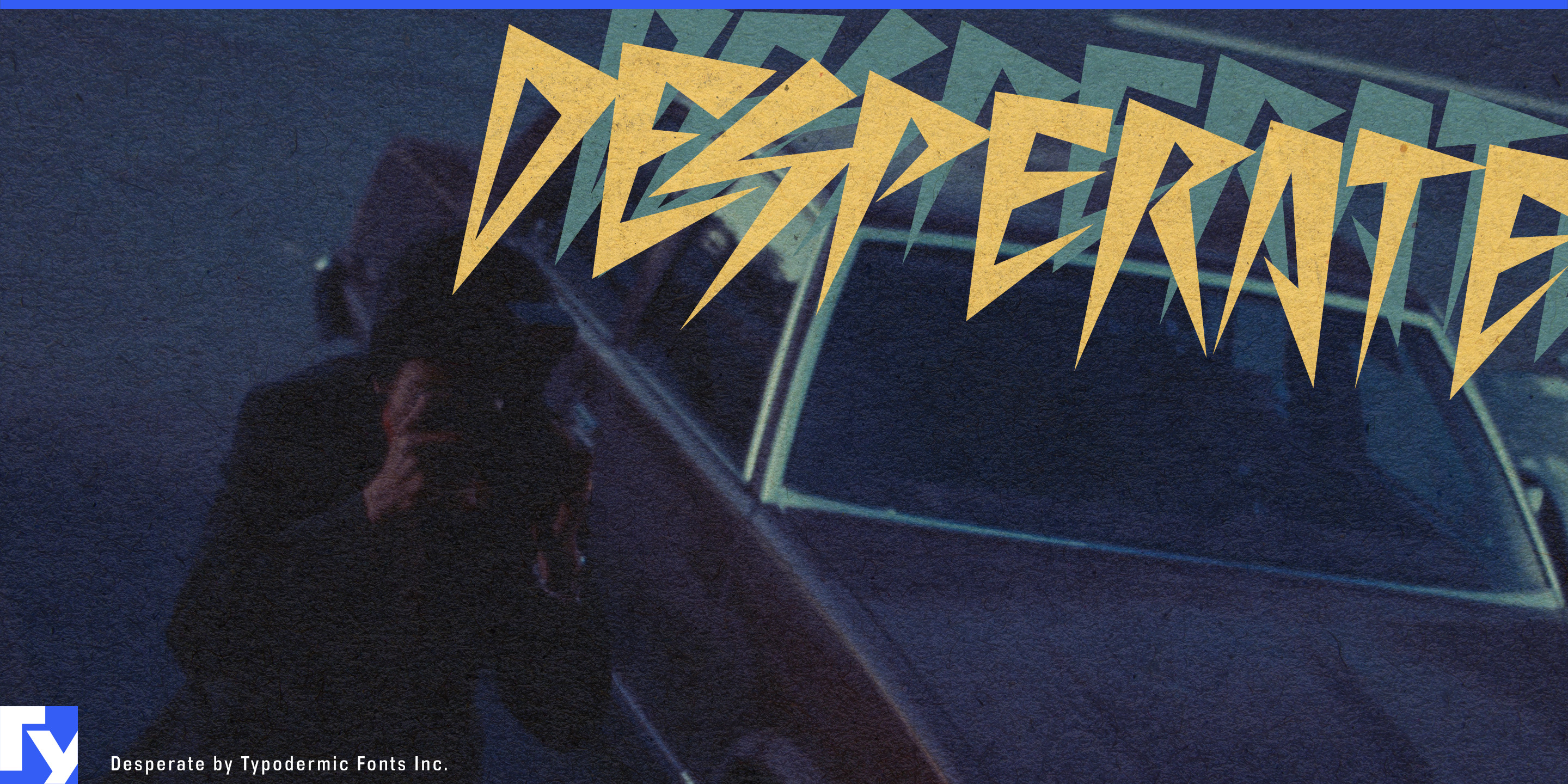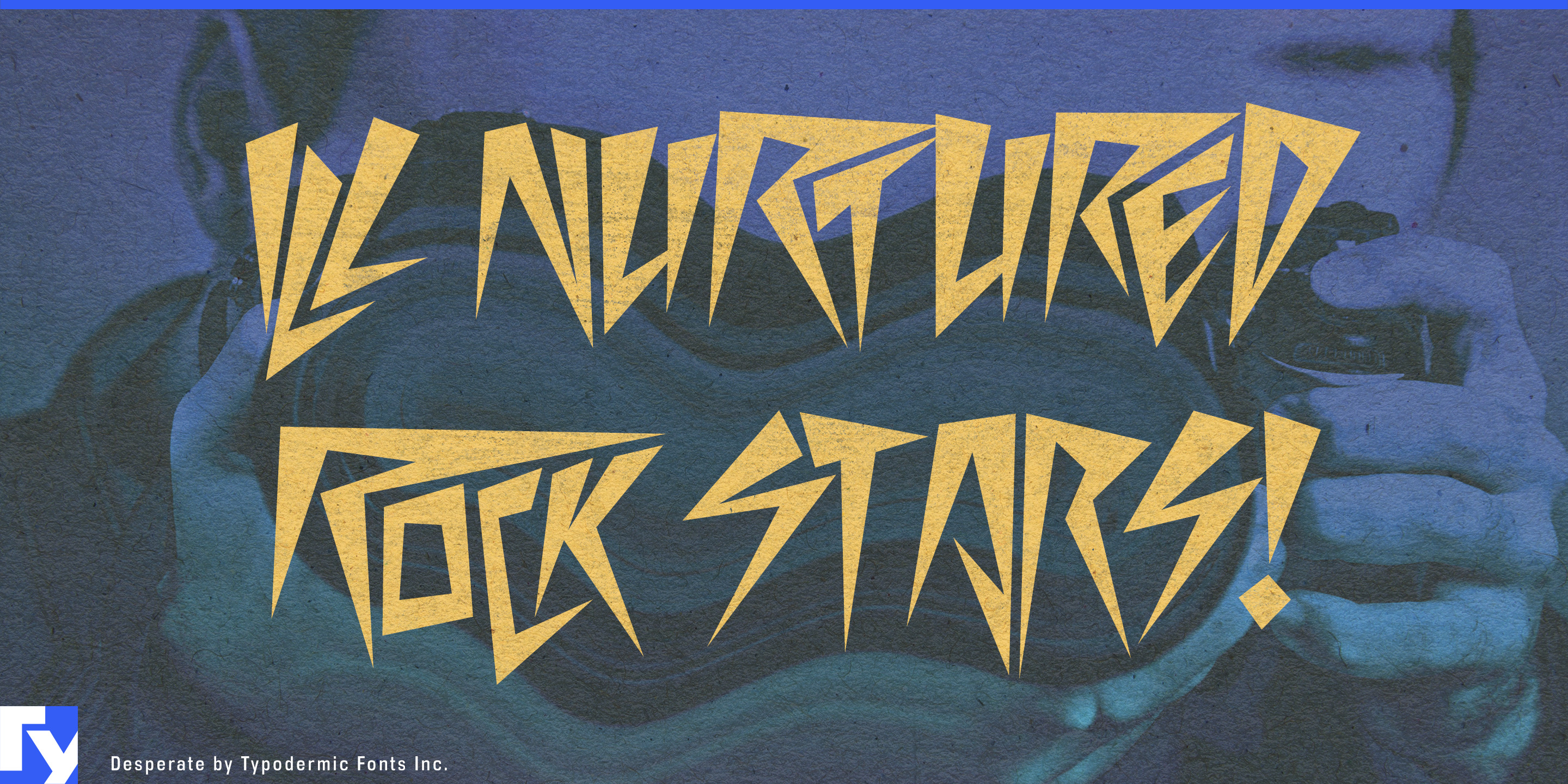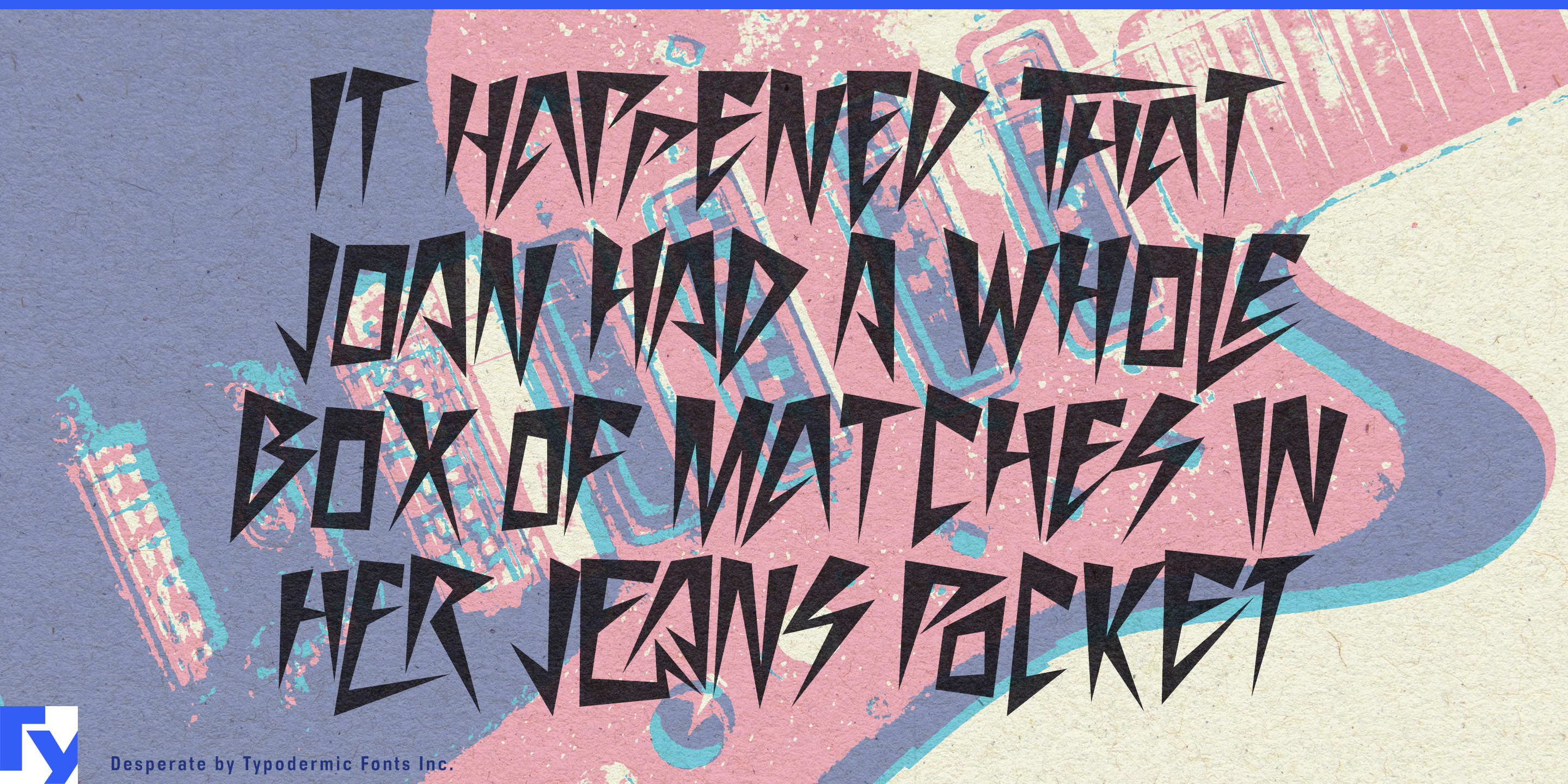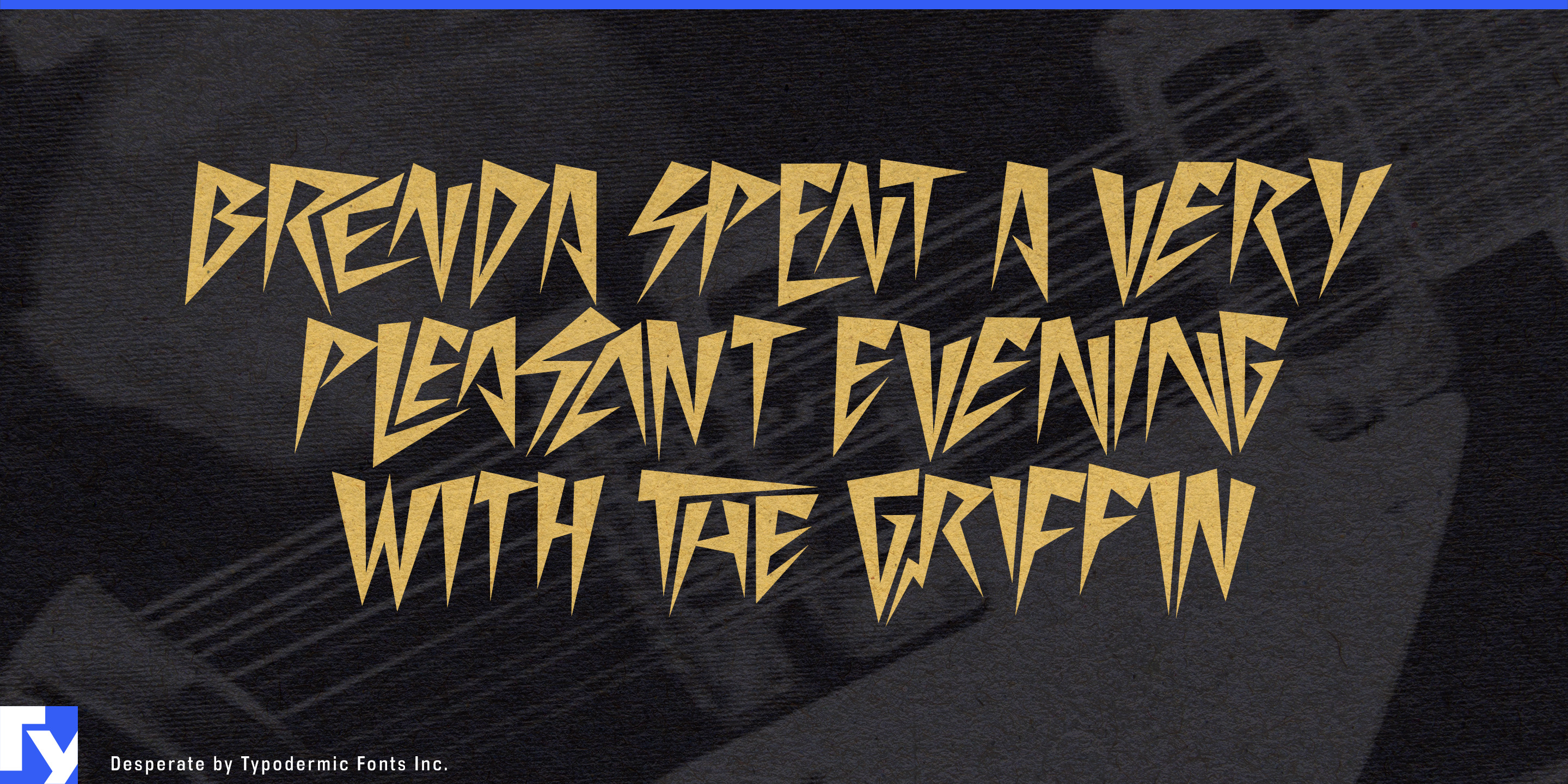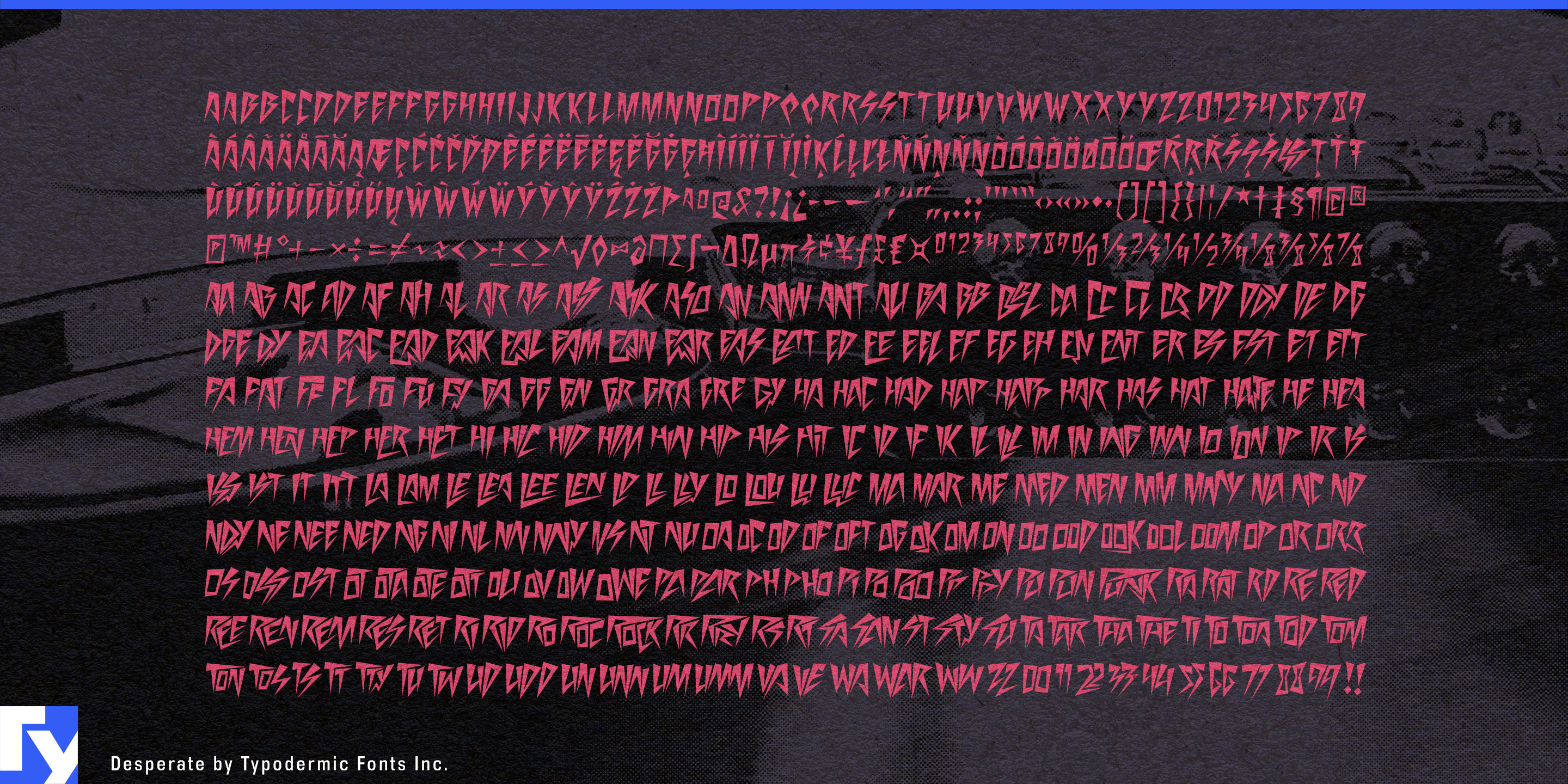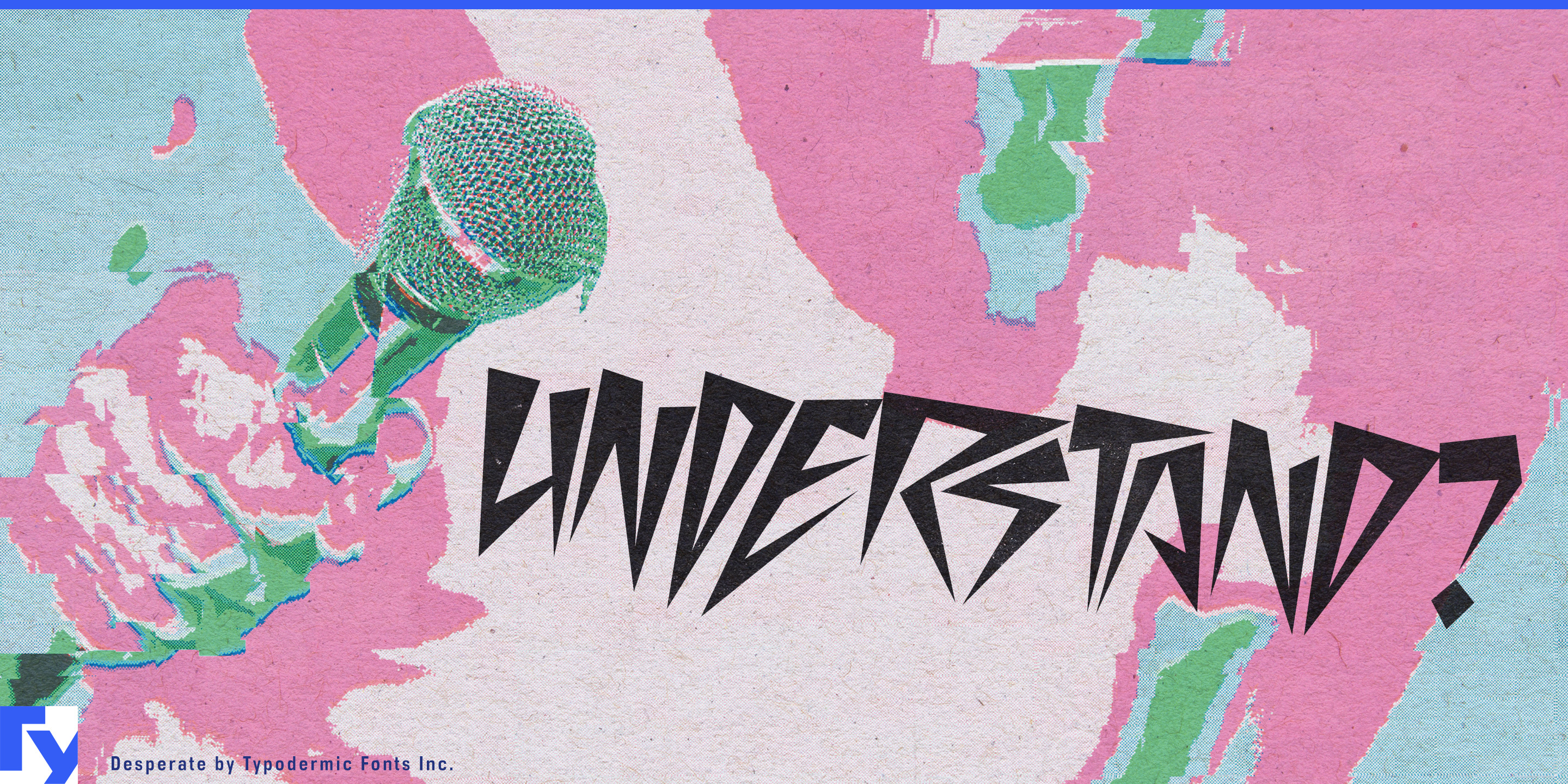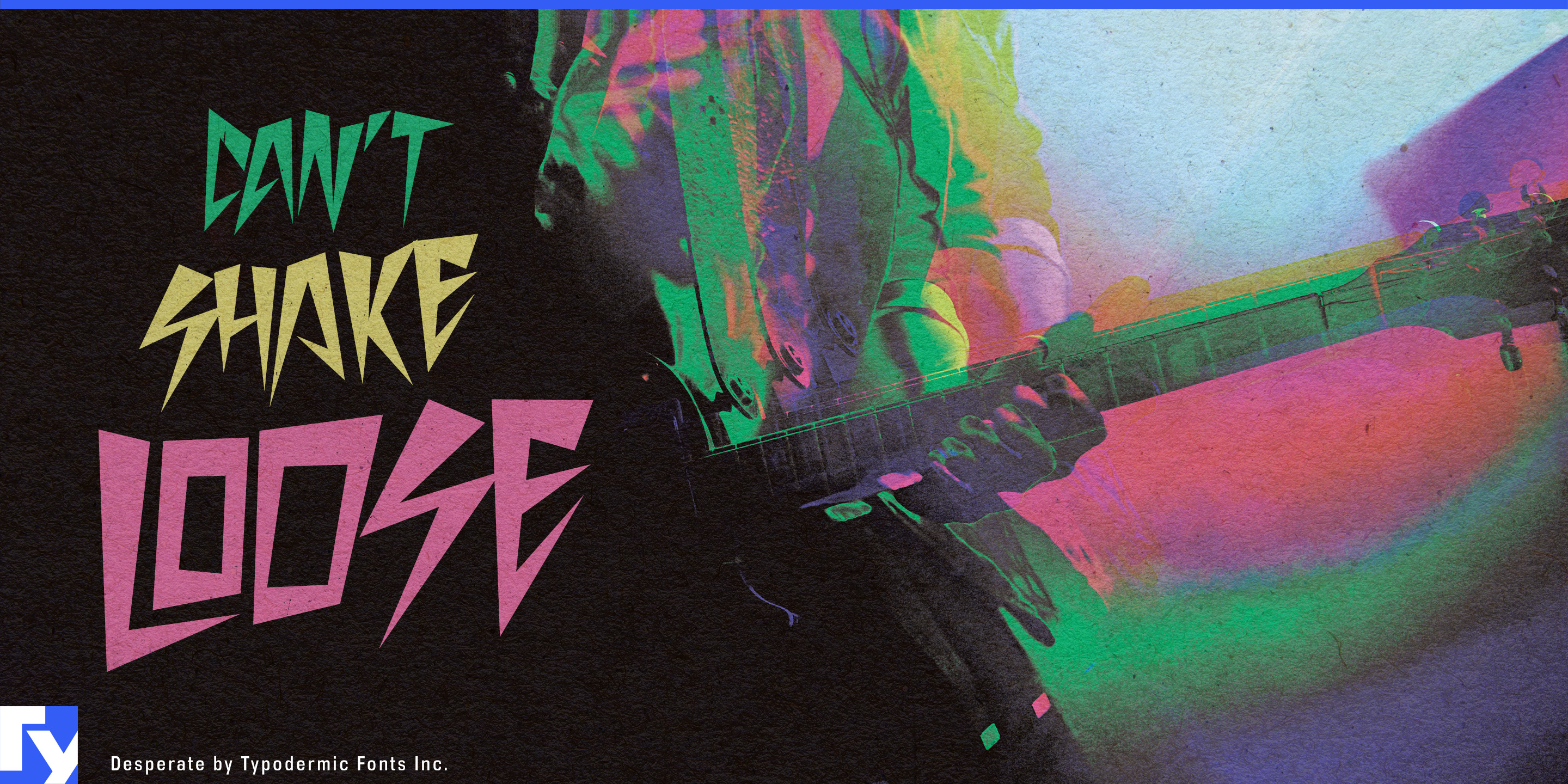
Desperate
Most type remains rectangular even after it has been rotated. Desperate behaves differently. Its long points, sloping edges, and irregular word silhouettes allow a headline to lock into a diagonal panel, cut across an image, or become part of the geometry surrounding it.
The all-capitals design is assembled from crisp angular strokes, triangular counters, and sharp extensions reaching above and below the line. More than 200 automatic ligatures reshape common letter pairs into fitted clusters; neighbouring forms can share diagonals, nest together, or collide in controlled ways. A short phrase becomes a connected piece of angular lettering rather than a row of separate characters.
Desperate is particularly effective on websites built from unusual angles. Oversized hero text can follow a sloped photograph or escape beyond the viewport. Rotated section labels can attach themselves to diagonal dividers, while scrolling bands and animated headlines gain movement from the letterforms themselves. Cropped points make words feel embedded in the page rather than placed on top of it.
Music-festival sites, concert-tour campaigns, streetwear releases, fashion lookbooks, action-sports events, and nightclub programmes can use Desperate for names, announcements, countdowns, and section transitions. The same construction carries into motion titles, stage projections, tour graphics, apparel, boards, record packaging, and event posters.
Its visual roots lie in punk, post-punk, and new-wave lettering, but the outlines are deliberate rather than distressed. The disorder comes from angle, proportion, spacing, and connection; any wear or texture can come from the surrounding artwork.
Desperate is intended for short titles and phrases. A neutral sans serif can handle navigation, schedules, prices, and body text while Desperate breaks selected words out of the grid. One angular headline can establish the direction of an entire composition.